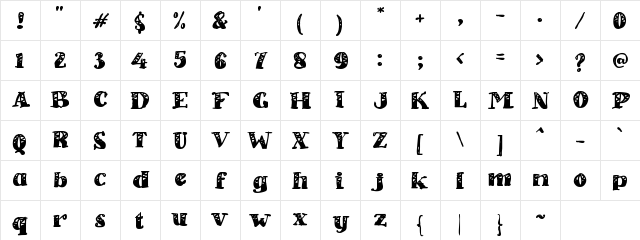
Complete a Avocado Taco Regular glyph index. Displaying only characters natively supported by a Avocado Taco Regular font.
a Avocado Taco is a composed and adaptable typeface that performs quietly and consistently across a wide range of design contexts.